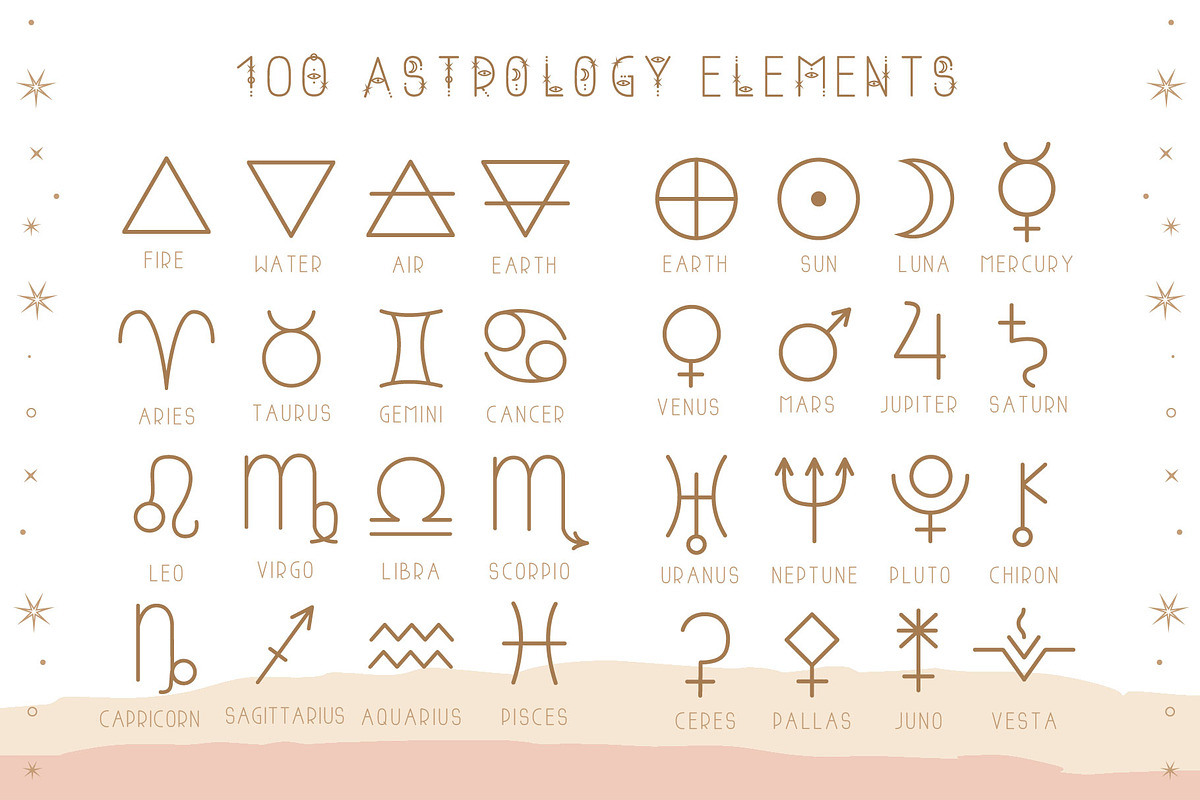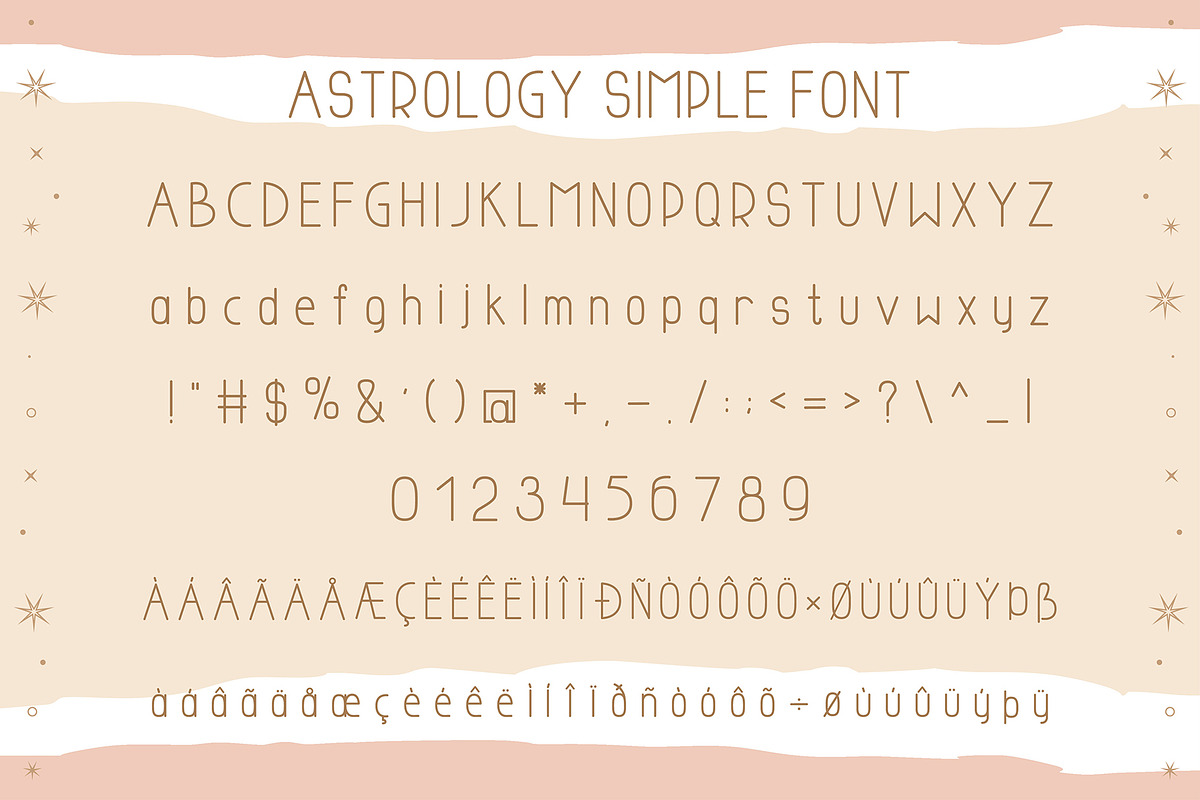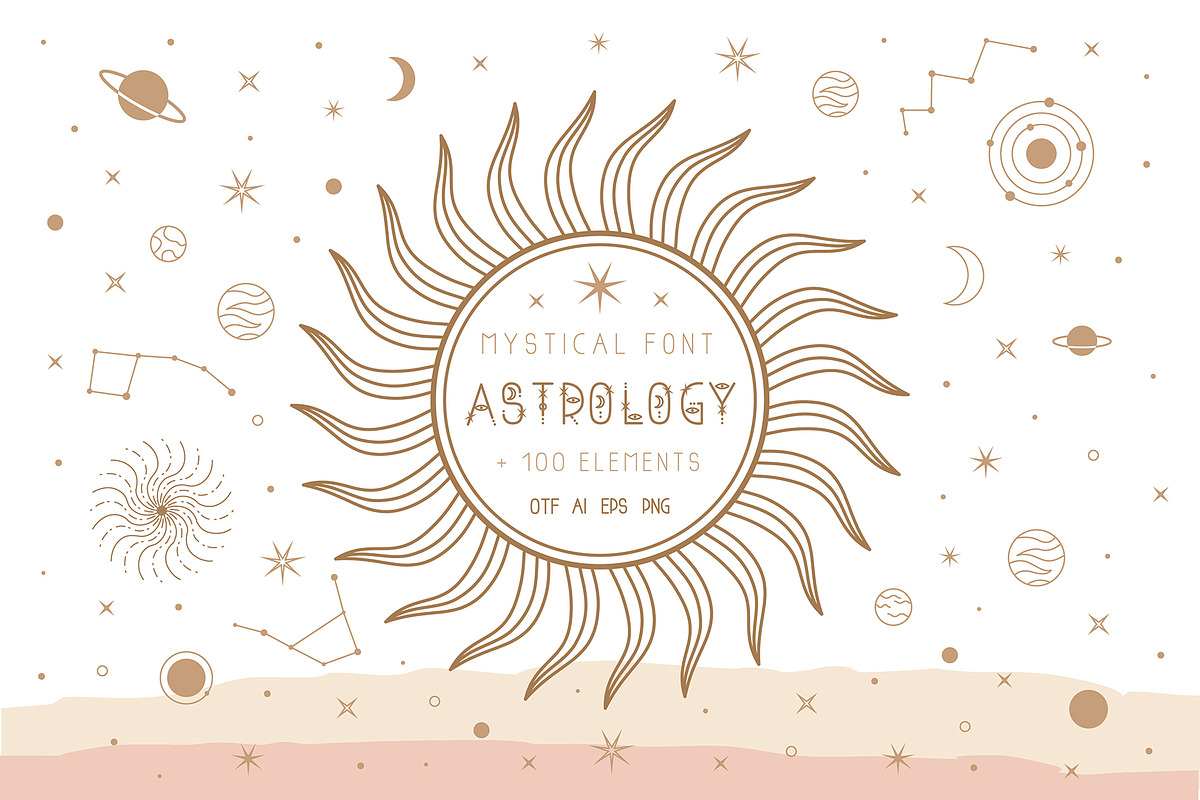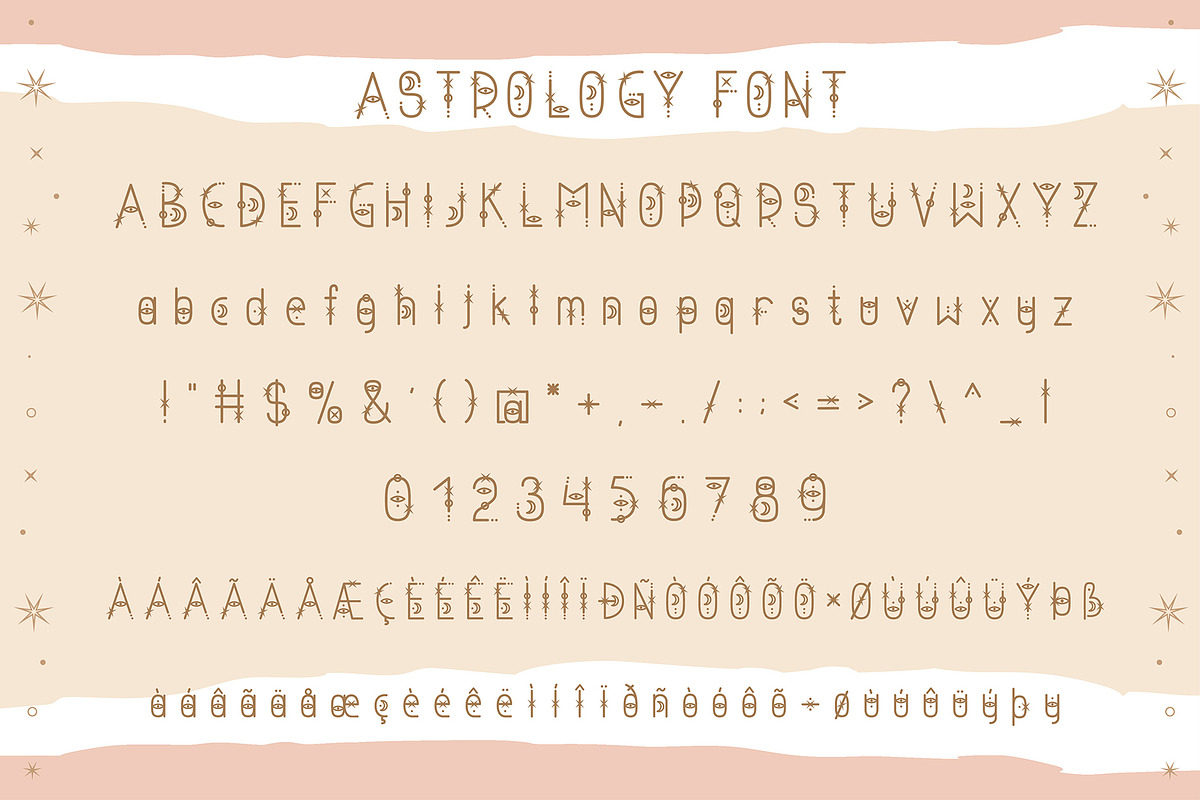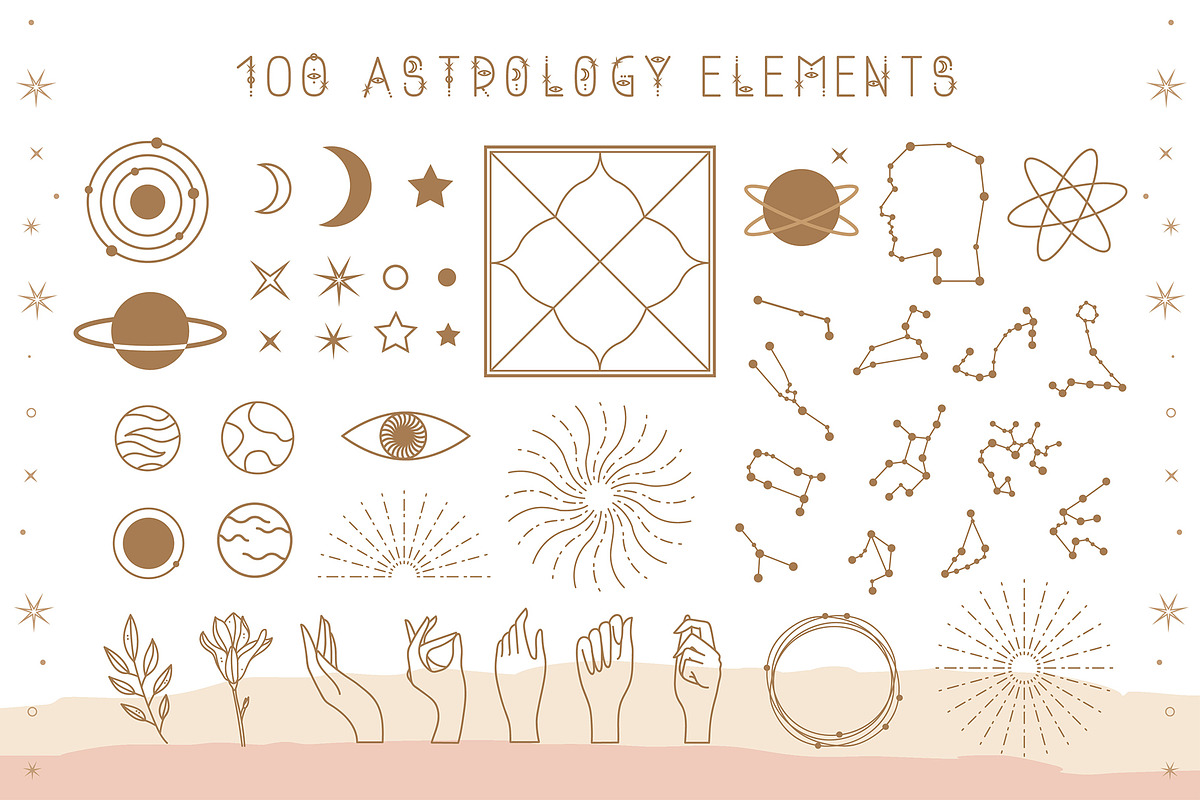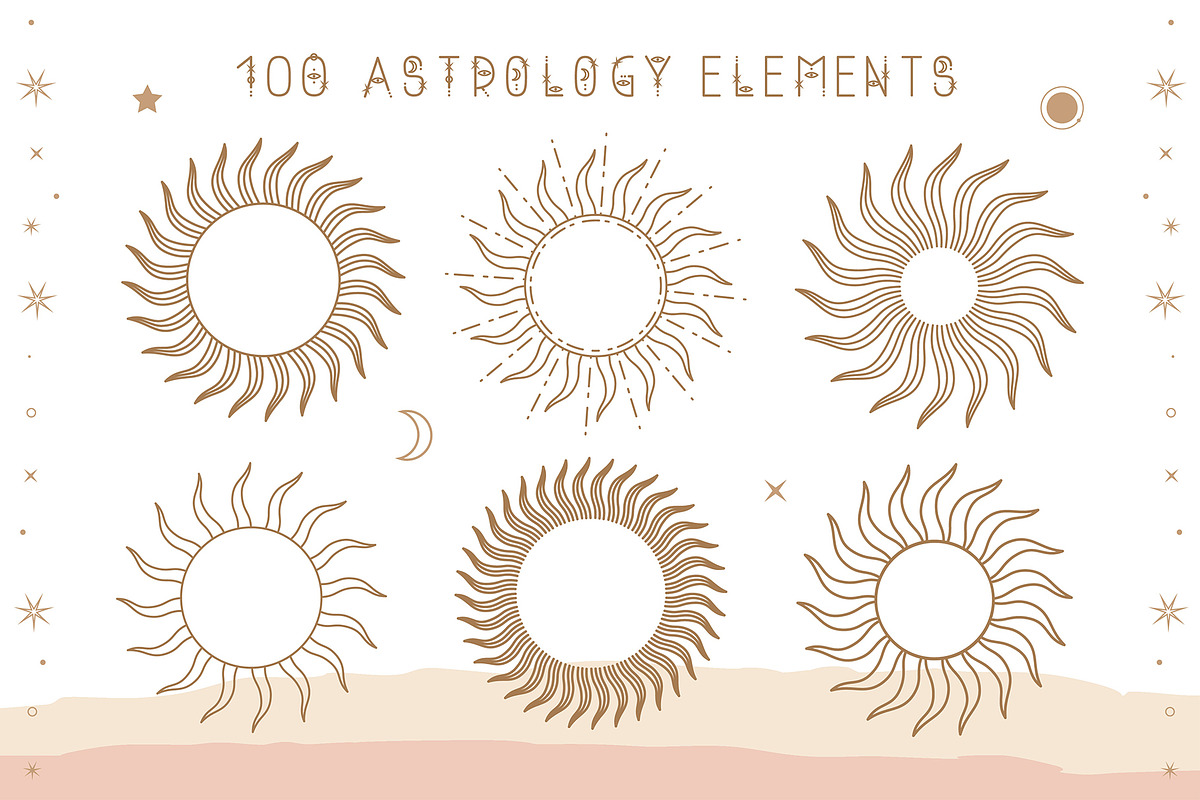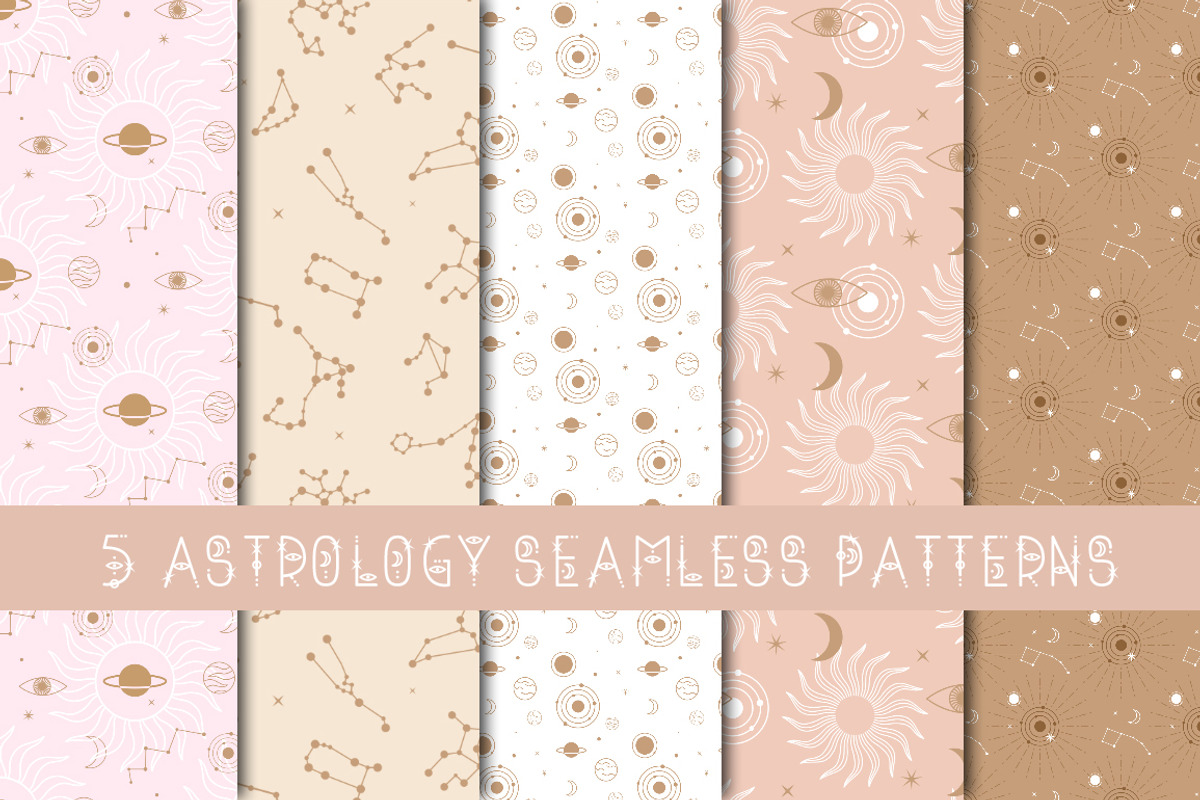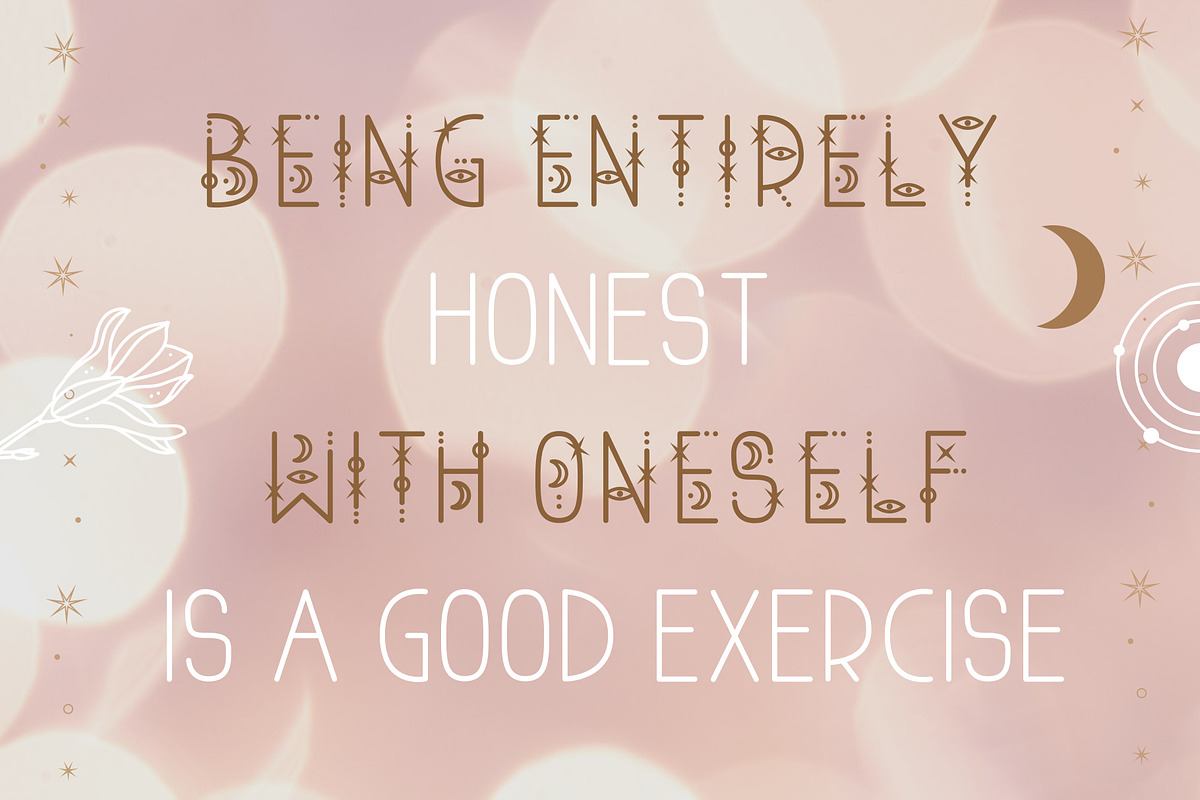
Astrology mystical font
I am glad to present you a new product - Astrology mystical font. This fantastic font is made with love to create a magical design for your website, business card, portfolio, intsagram profile and other social networks. Along with the font, I included thematic elements for the astrologer in the set. Set is perfect for both web and print, logos, social media posts, branding, mystery invitations, stickers, T-shirts, blog or a jewelry business and much more!
- Along with the font, I included thematic elements for the astrologer in the set.
- Astrology Regular
- Astrology Simple Regular
Astrology mystical font by JuliyArt fits naturally into Branding, posters, packaging, typography.